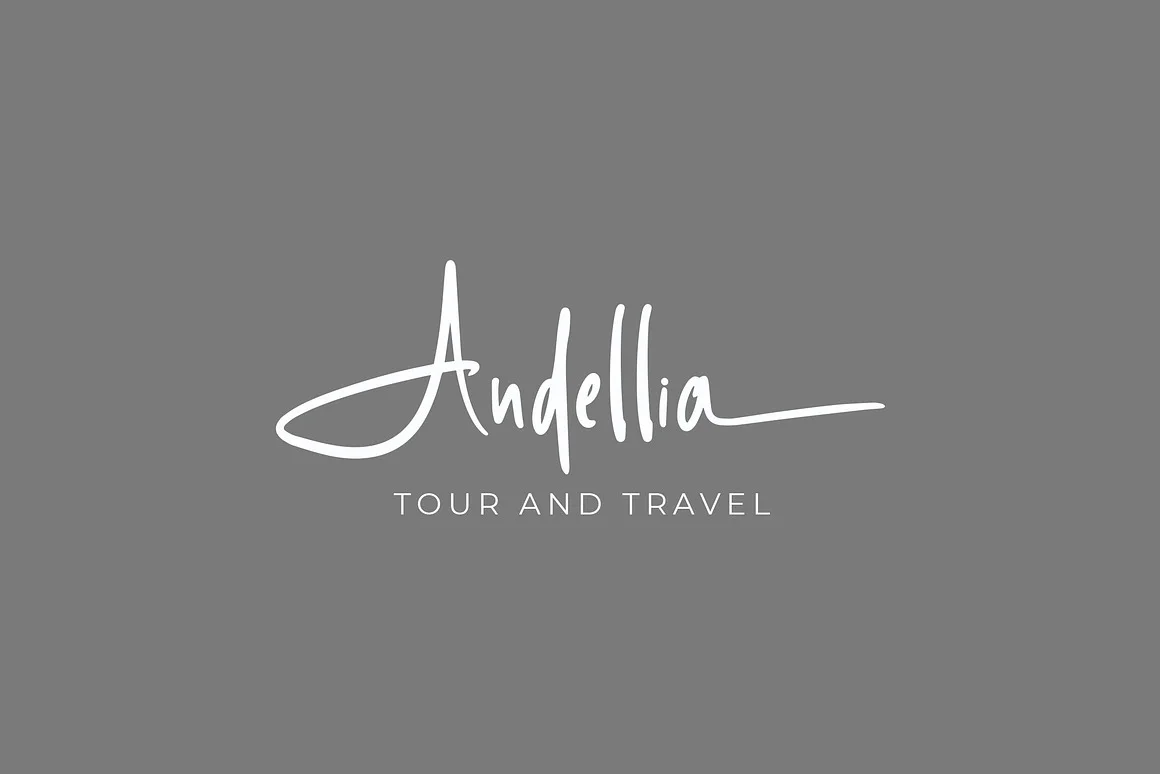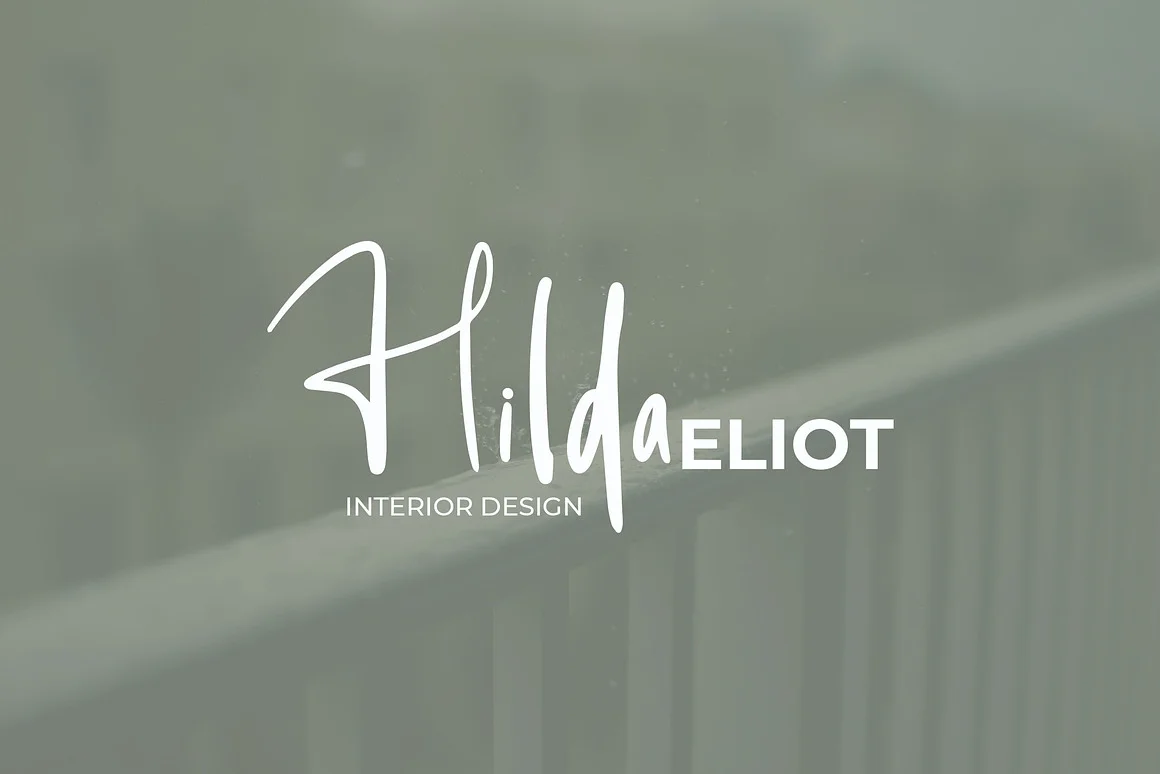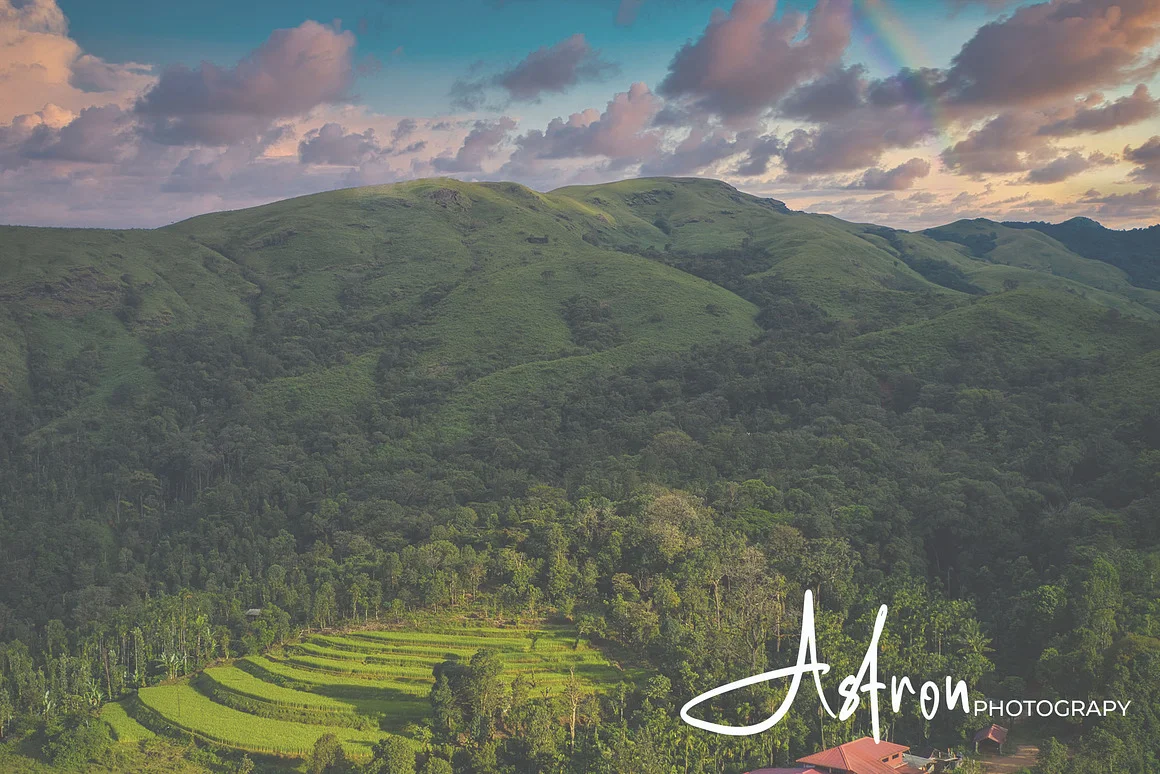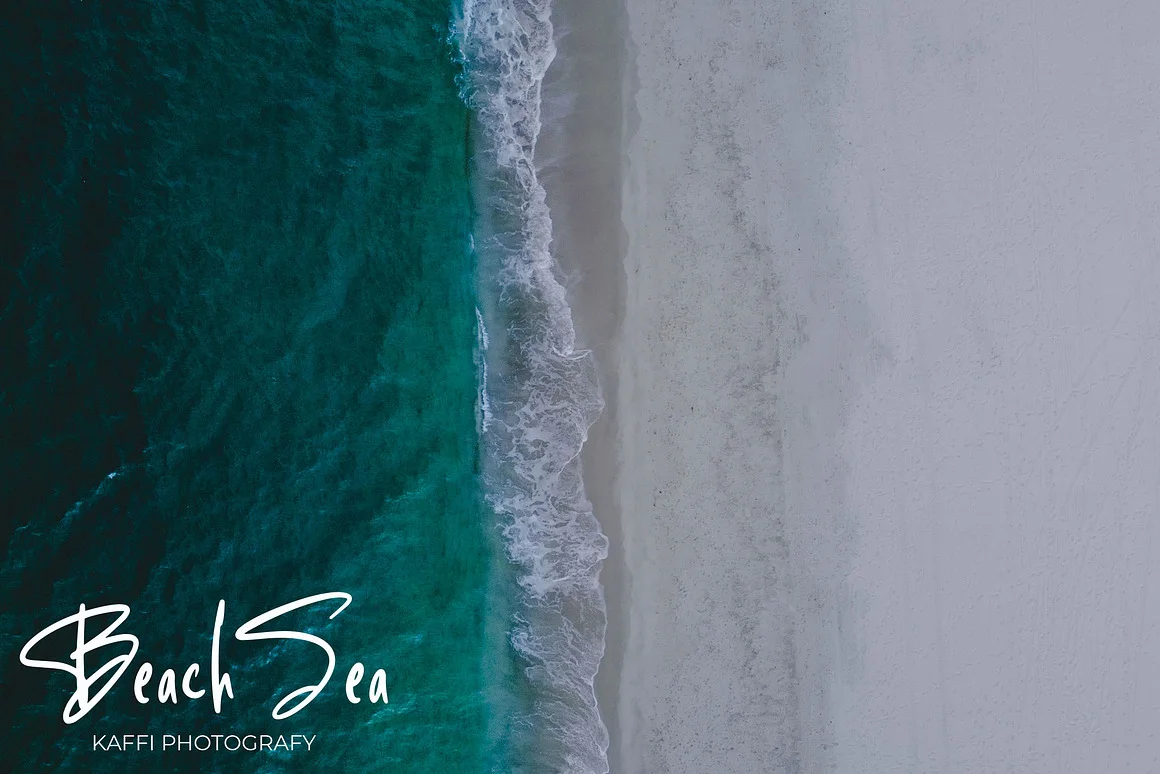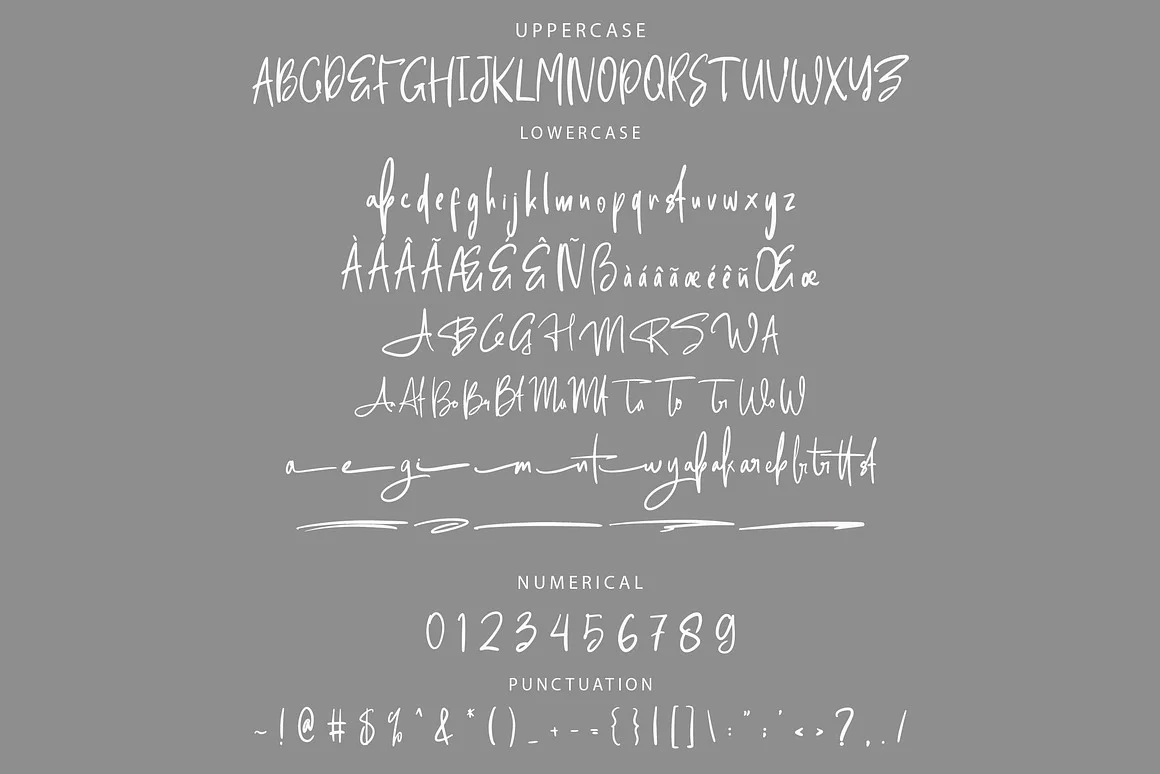
Amotta Ragenta Signature Font
The Amotta Ragenta Signature Font excels in passionate design applications including romantic brand identities, intimate business logos, heartfelt wedding invitations, emotional product packaging, loving correspondence, artistic portfolios, affectionate greeting cards, romantic social media graphics, passionate event signage, and expressive marketing materials. Its passionate script style makes it perfect for projects requiring emotional elegance that communicates deep feeling and establishes intimate brand positioning with audiences seeking genuine romantic connections and heartfelt sophistication.
What makes the Amotta Ragenta Signature Font truly exciting is its exceptional ability to convey romantic passion and emotional depth through lovingly crafted letterforms. The font features flowing, passionate strokes with romantic flourishes and heartfelt proportions that create a distinctly emotional appearance. Each character displays masterful attention to romantic detail with tender curves, loving connections, and intimate spacing that give text a deeply personal, hand-lettered quality. The font's passionate character and romantic rhythm create an atmosphere of love while maintaining elegant sophistication and heartfelt authenticity.
The Amotta Ragenta Signature Font family typically includes regular weight with extensive character coverage, featuring uppercase and lowercase letters, numerals, punctuation marks, and international characters. The typeface often incorporates stylistic alternates, contextual ligatures, and romantic swashes that enhance its signature passion. These additional elements provide designers with creative flexibility to customize text appearance and achieve more natural-looking passionate handwriting that reflects the font's romantic and emotional character.
This romantic signature font captivates emotional audiences through its remarkable balance of passion and elegance. Unlike cold or detached fonts that lack emotional resonance, Amotta Ragenta Signature Font embraces the power of romantic expression to create deep emotional connections with audiences. The font's passionate character makes it essential for romantic brands, wedding professionals, and intimate businesses where expressing genuine emotion and creating heartfelt connections is fundamental to success in relationship-focused markets.
The Amotta Ragenta Signature Font presents designers with an outstanding opportunity to incorporate romantic passion into their emotional projects. From wedding planning services to romantic gift brands, this font delivers the passionate signature aesthetic that resonates with audiences seeking genuine emotional connections and heartfelt experiences. Its romantic appeal ensures your designs communicate deep feeling while the signature styling adds distinctive personality that reflects passionate love and romantic sophistication in any application requiring emotional typography solutions.